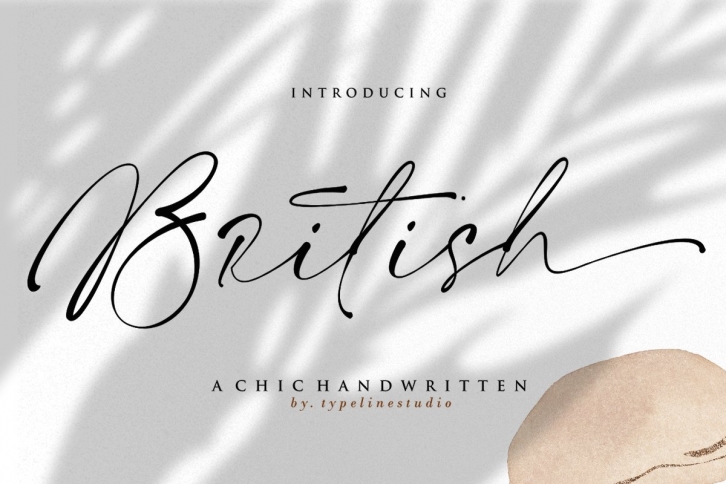
British Hanwritten with 40 eps illustration . is a trendy and unique font with an authentic style. It was designed by typelinestudio and it's a great choice for creative people who need such a font. It was released on October 12, 2020 and the file size is 21.66 MB. British Hanwritten with 40 eps illustration . will add an organic vibe to any design idea!